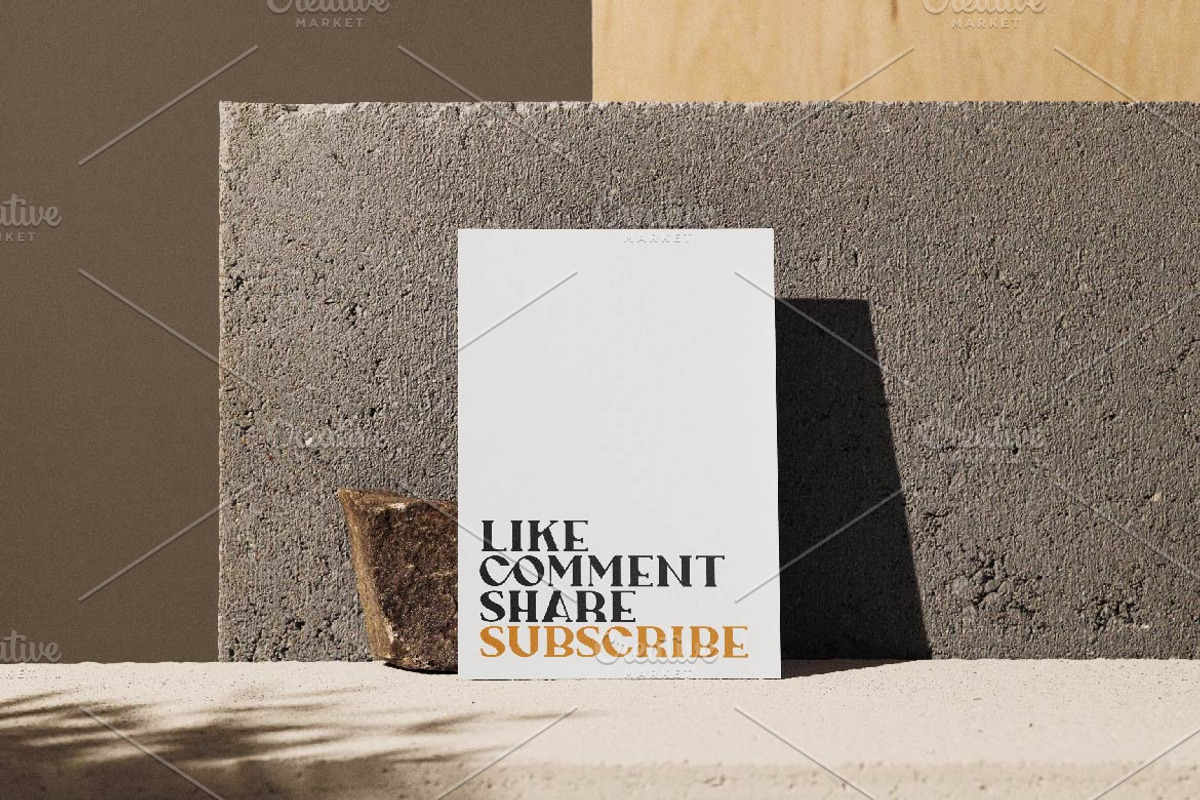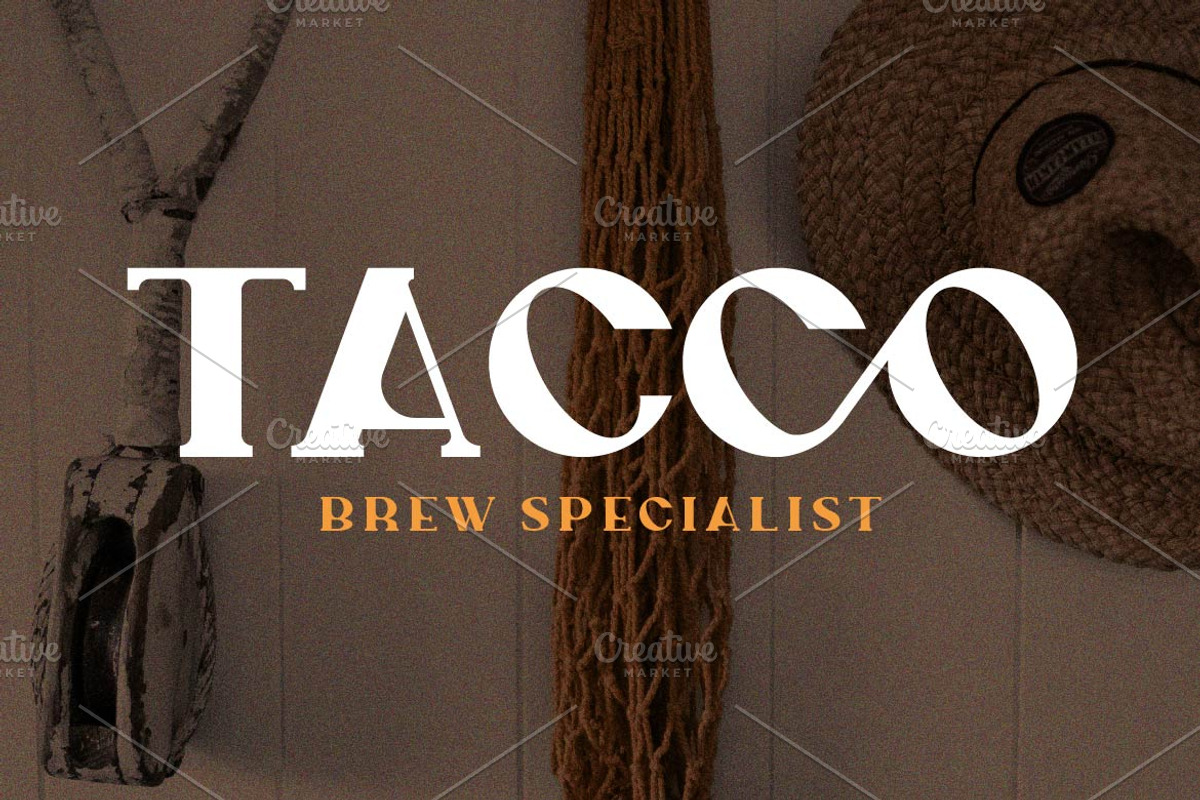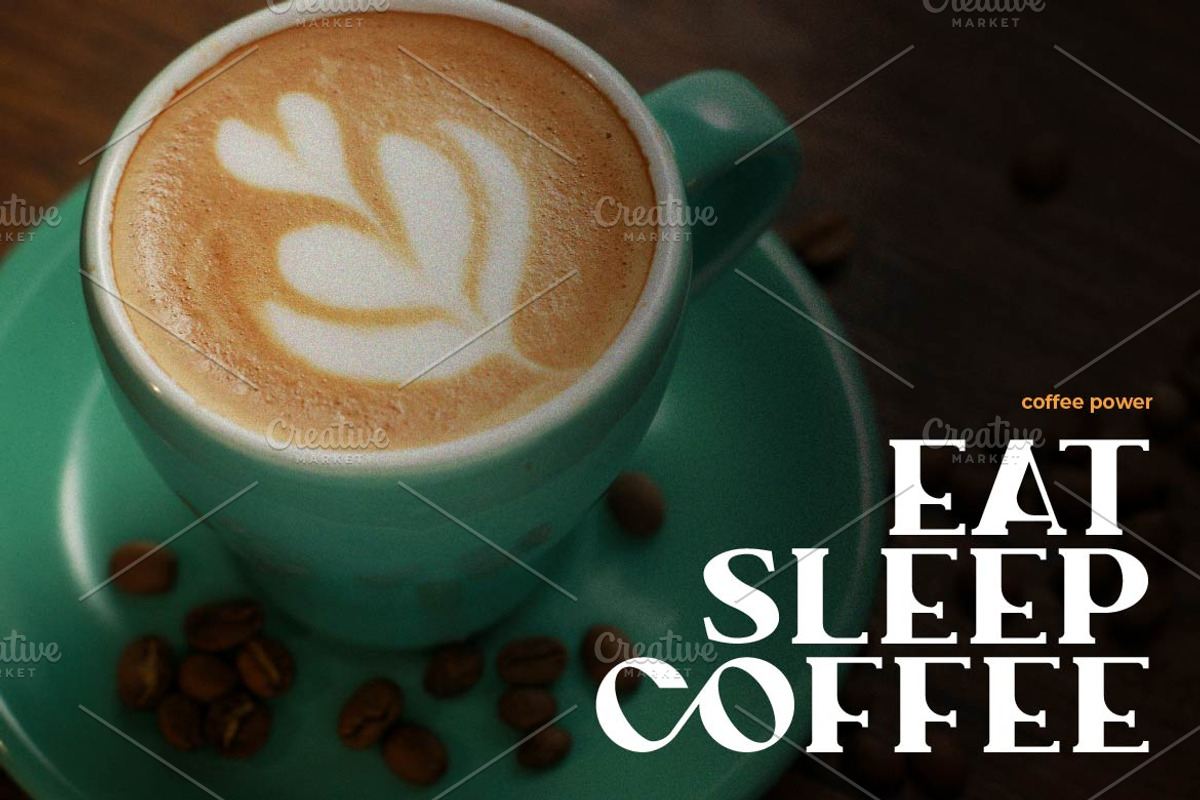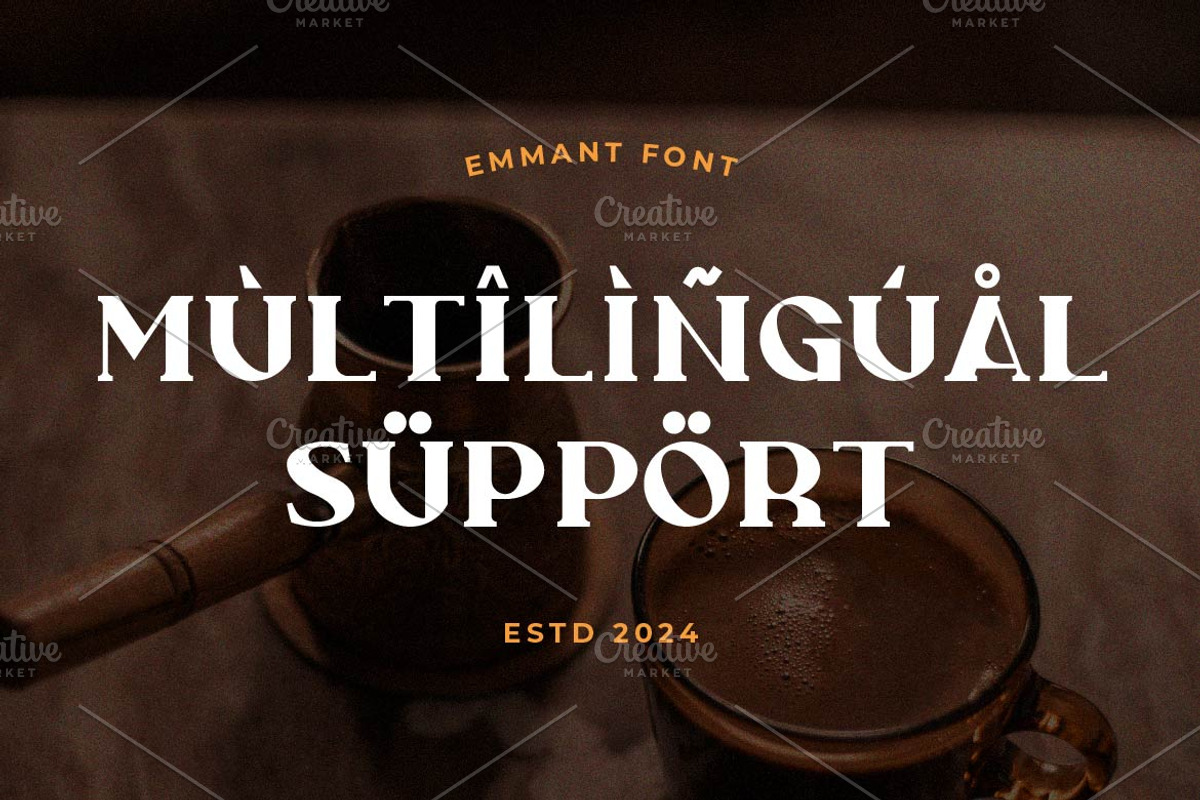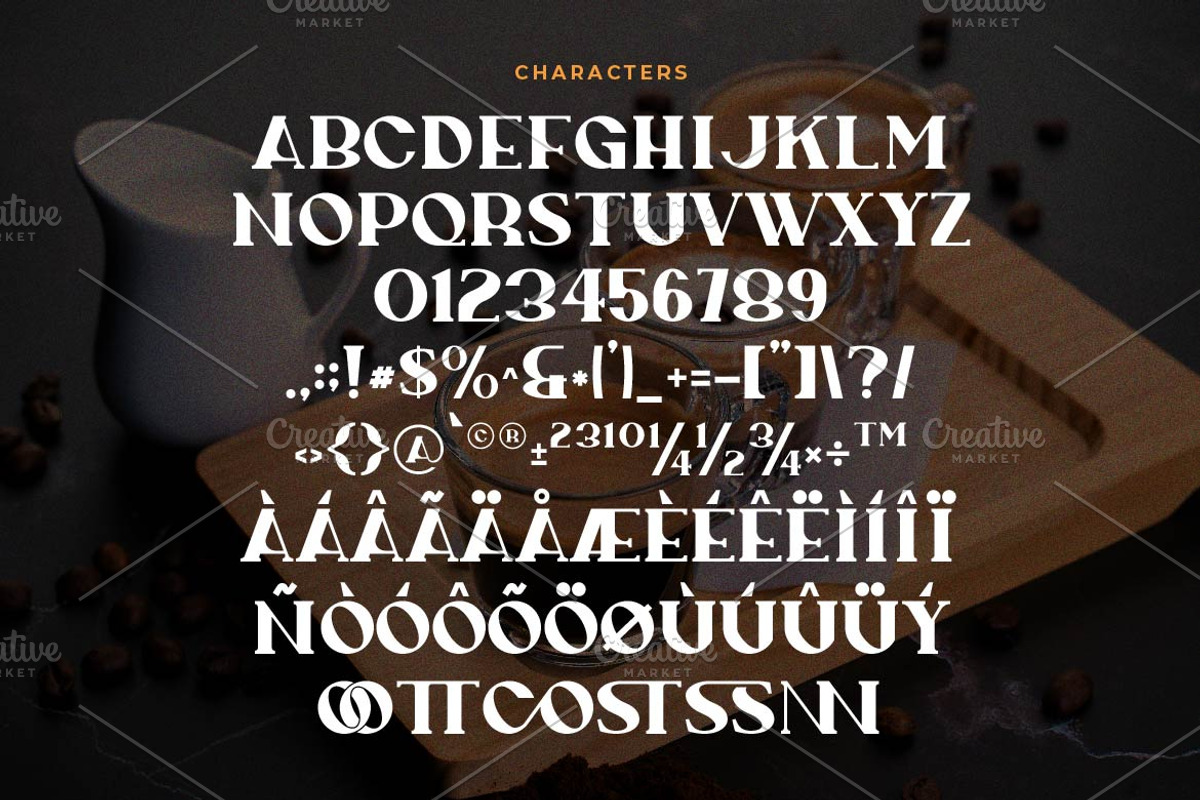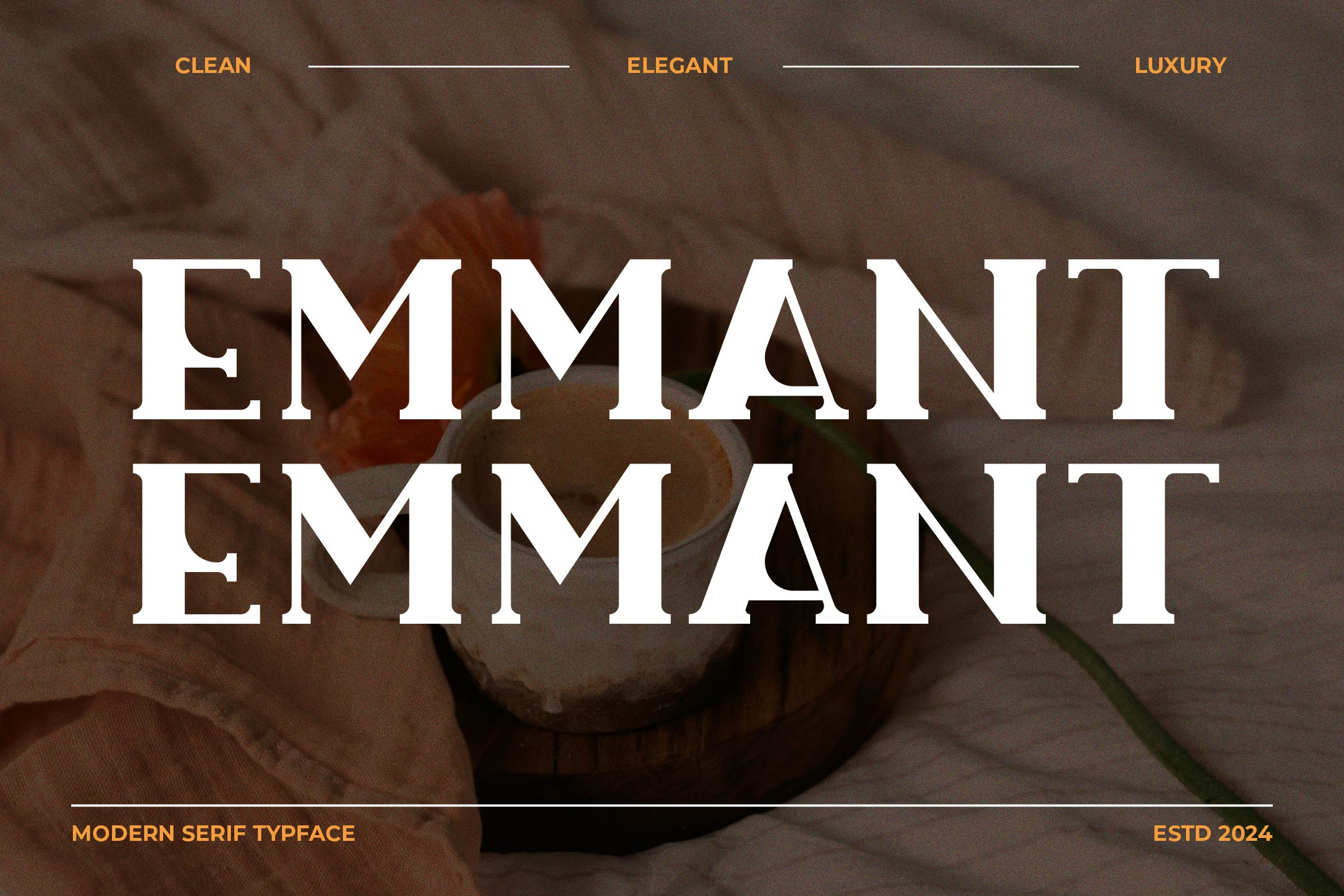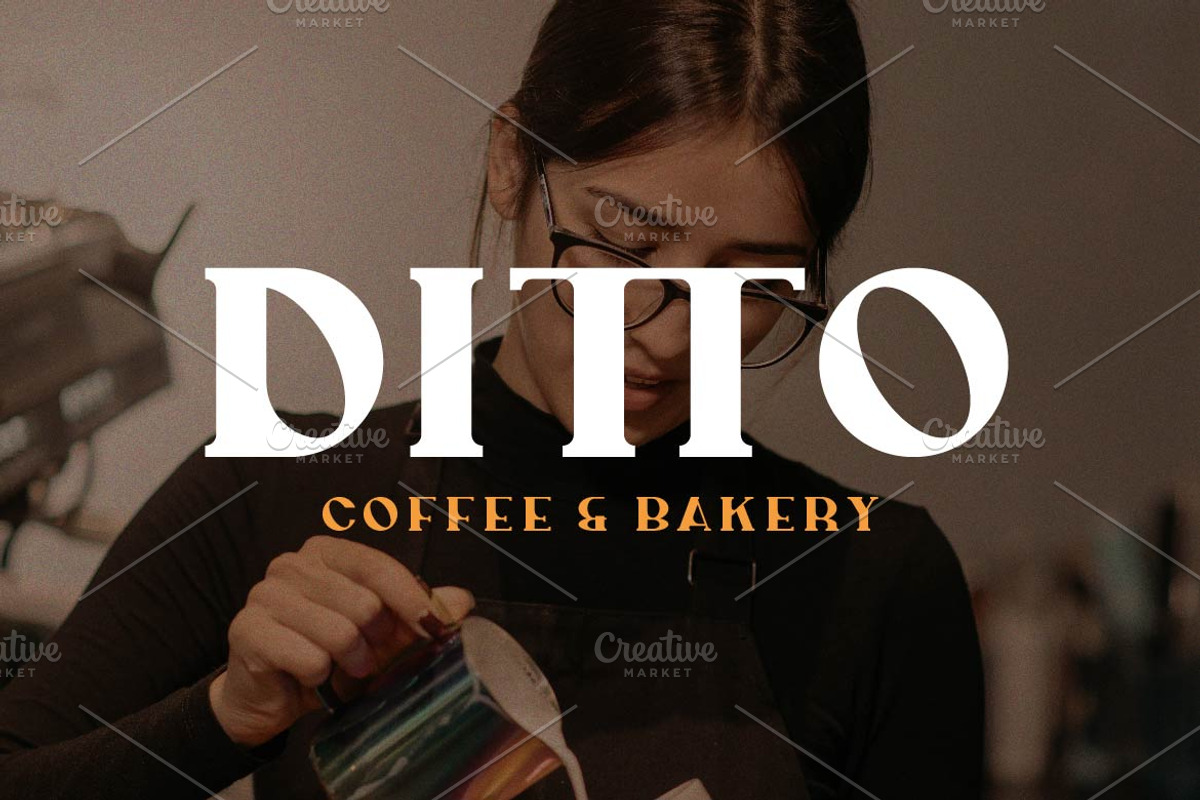
Emmant Stylish Serif Font
Emmant is a timeless serif font by Iwan Alwan, featuring elegant, well-defined letterforms that radiate sophistication and class. Perfect for branding, editorial layouts, book covers, and luxury designs, Emmant combines classic styling with modern versatility. With multilingual support, ligatures, and alternates, Emmant offers a refined aesthetic that elevates any project, making it an ideal choice for designs that demand elegance and professionalism.